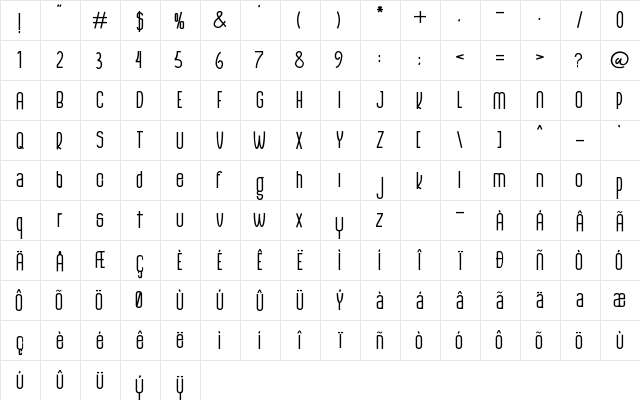
The Monthego Regular
| Designer | Nerzstudio 2020 |
Design Context for The Monthego Typeface
The Monthego takes a measured approach to typography — its balanced proportions and neutral character make it a reliable workhorse for both digital and print work.